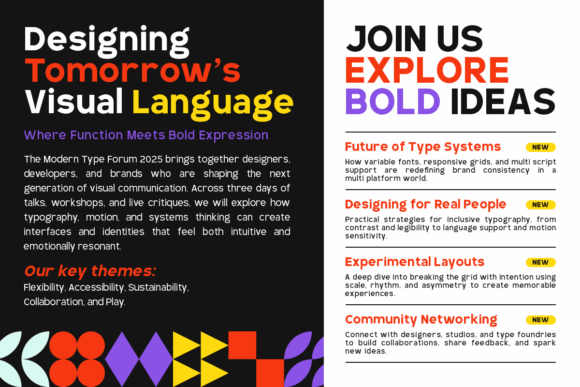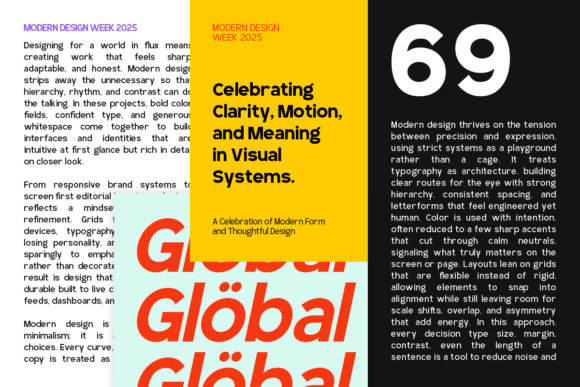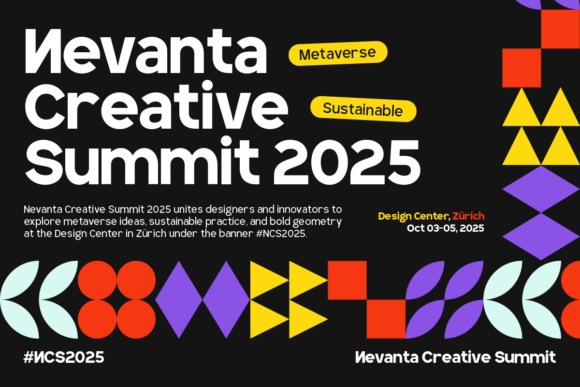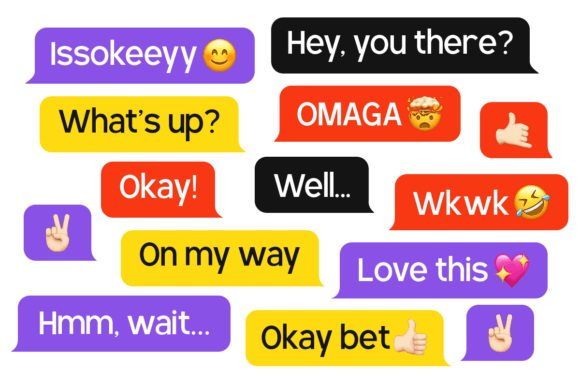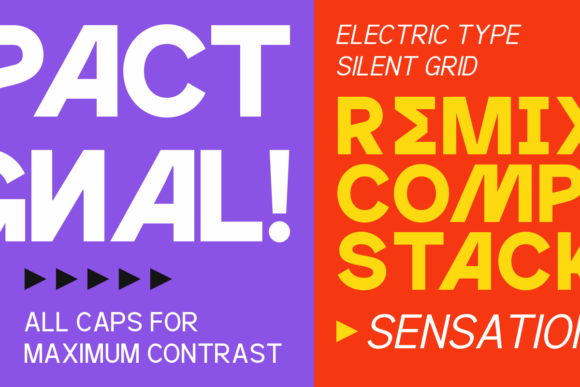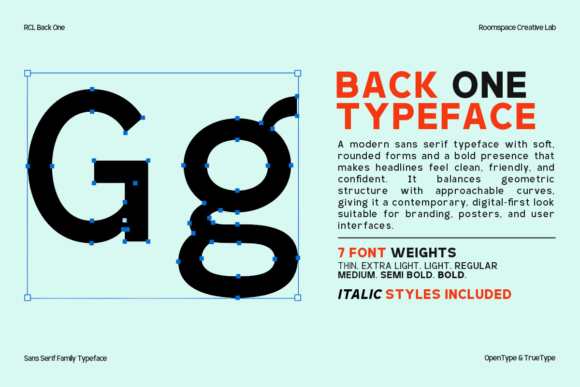
The Birth of a Design Icon: Unveiling the Power of Backone Font
It’s 3 am, and the design studio is buzzing with creativity. You’re staring at a blank canvas, trying to craft the perfect visual identity for a cutting-edge tech startup. Suddenly, inspiration strikes – a sleek, modern sans-serif font that screams innovation and sophistication. This is where the Backone Font comes in – a game-changing typeface that elevates your design from good to great.
Backone Font is a masterclass in modern minimalism, boasting a clean and versatile sans-serif family that effortlessly adapts to digital and print environments. With seven weights to choose from, you can create bold, impactful headlines or light, airy body text that effortlessly guides your audience through the narrative. Whether you’re designing logos, branding kits, or marketing materials, Backone Font is an invaluable asset that will take your designs to the next level.
Key Features of Backone Font
- Font Family: Backone Font is a modern sans-serif font family that includes 12 styles (6 weights and 6 matching italics) to cater to various design needs.
- Character Count: Backone Font includes over 2,000 glyphs, covering a wide range of languages and characters, including Latin, Cyrillic, and Greek scripts.
- Unique Characteristics: Backone Font features a clean and minimalist design, with subtle rounded corners and a high x-height, making it highly legible and versatile for various design projects.
Backone Font Review
I recently had the chance to work with the Backone Font, and I have to say it’s a mixed bag. ✨ Let’s start with the good stuff – the font has some great qualities that make it a solid choice for certain projects.
- ✨ Clean lines and minimalistic design make it perfect for modern and sleek interfaces.
- ✨ It’s highly legible, even at smaller font sizes, which is great for text-heavy content.
- ✨ The font family includes a range of weights, making it easy to find the perfect fit for your project.
However, ⚠️ there are some limitations to consider. The font lacks some of the personality and flair that other fonts offer, which can make it feel a bit bland.
- ⚠️ Limited expressiveness and character, which may not be suitable for projects that require a lot of visual interest.
- ⚠️ Some users may find the font too plain or boring.
Overall, I’d say the Backone Font is a solid choice for projects that require a clean, modern look. While it may not be the most exciting font out there, it’s a reliable and versatile option that gets the job done.
Backone Font is ideal for:
- Creating eye-catching headings and titles.
- Adding a touch of elegance to presentations and documents.
- Designing custom typography for branding and marketing materials.